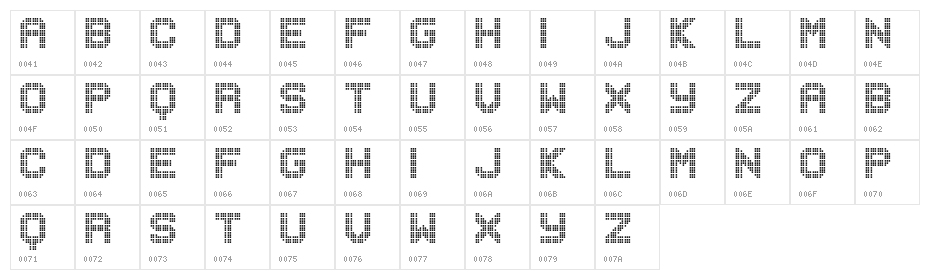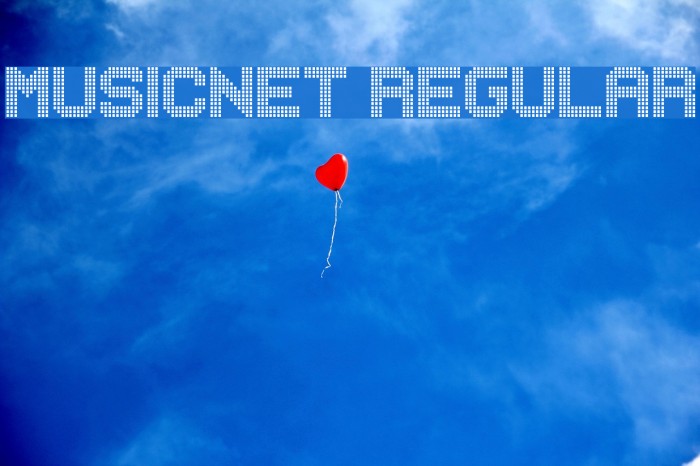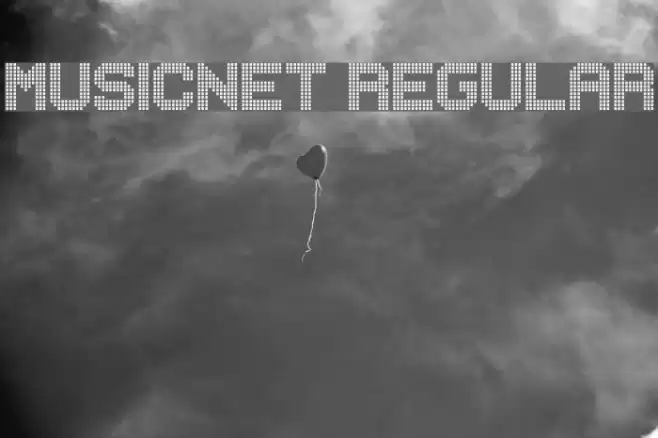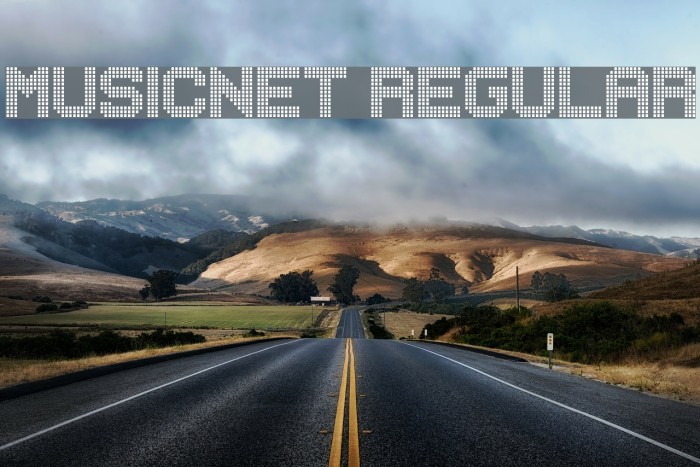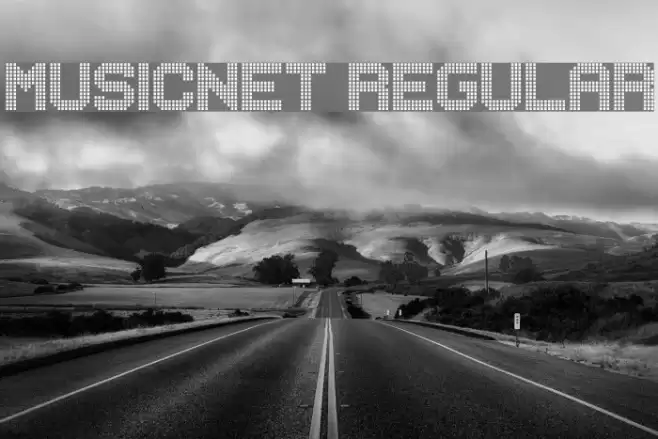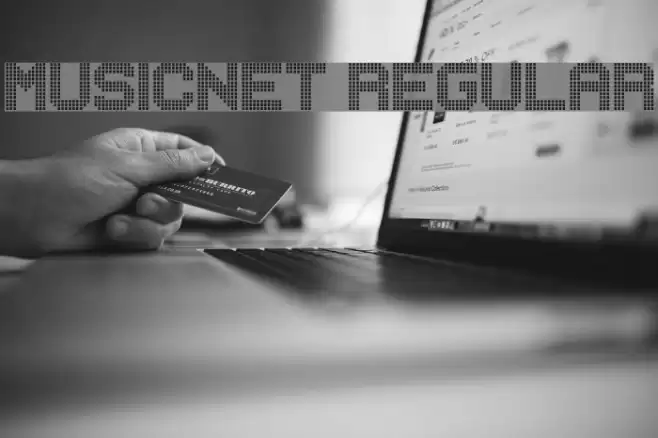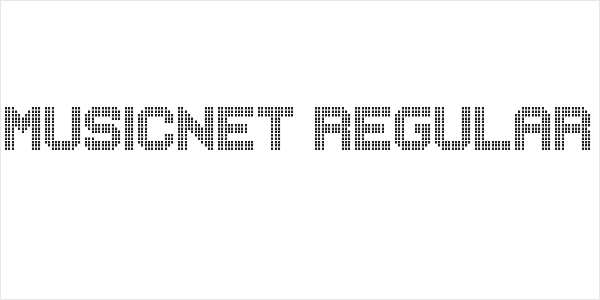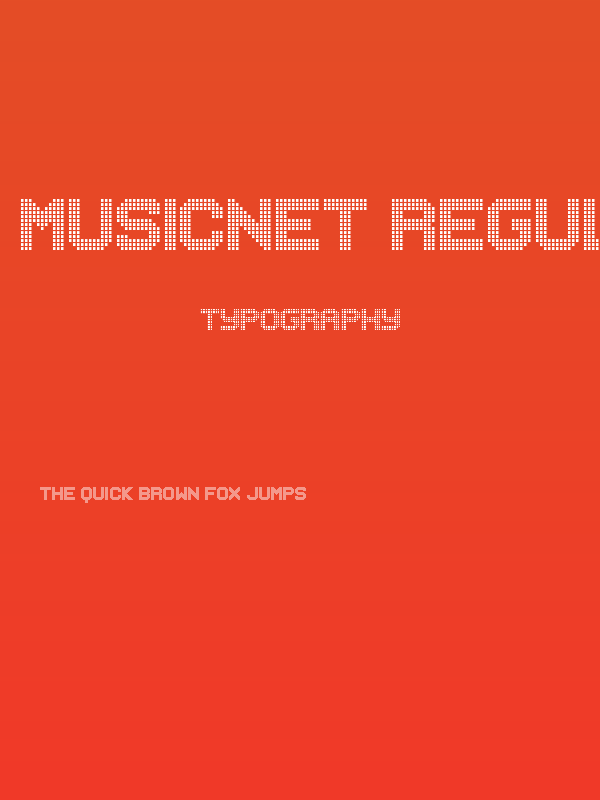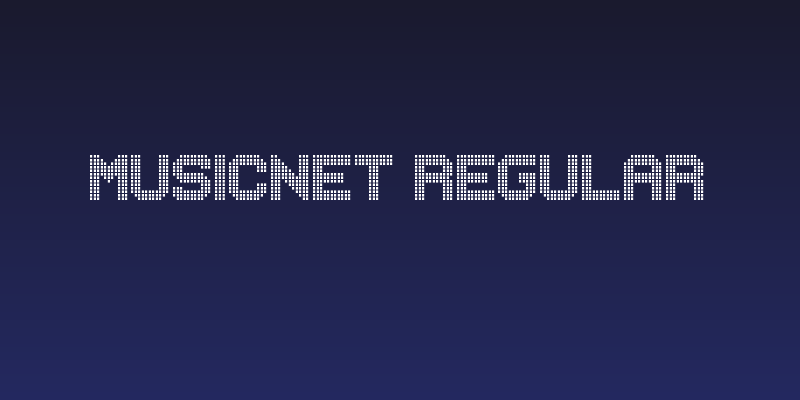
MUSICNET Regular Font
MUSICNET Regular Description
This font features a unique design composed of small, evenly spaced dots forming each character. The geometric and grid-like structure gives it a digital and modern appearance, reminiscent of LED displays or pixel art. The uppercase letters are bold and consistent, maintaining a uniform height and width, which enhances readability. The font's distinct style makes it stand out, ideal for creative and tech-oriented projects. Its structured formality is balanced by the playful dot pattern, making it versatile for various design needs.
| Proposed Projects | Ideal for digital displays, tech branding, music event posters, and modern art projects. |